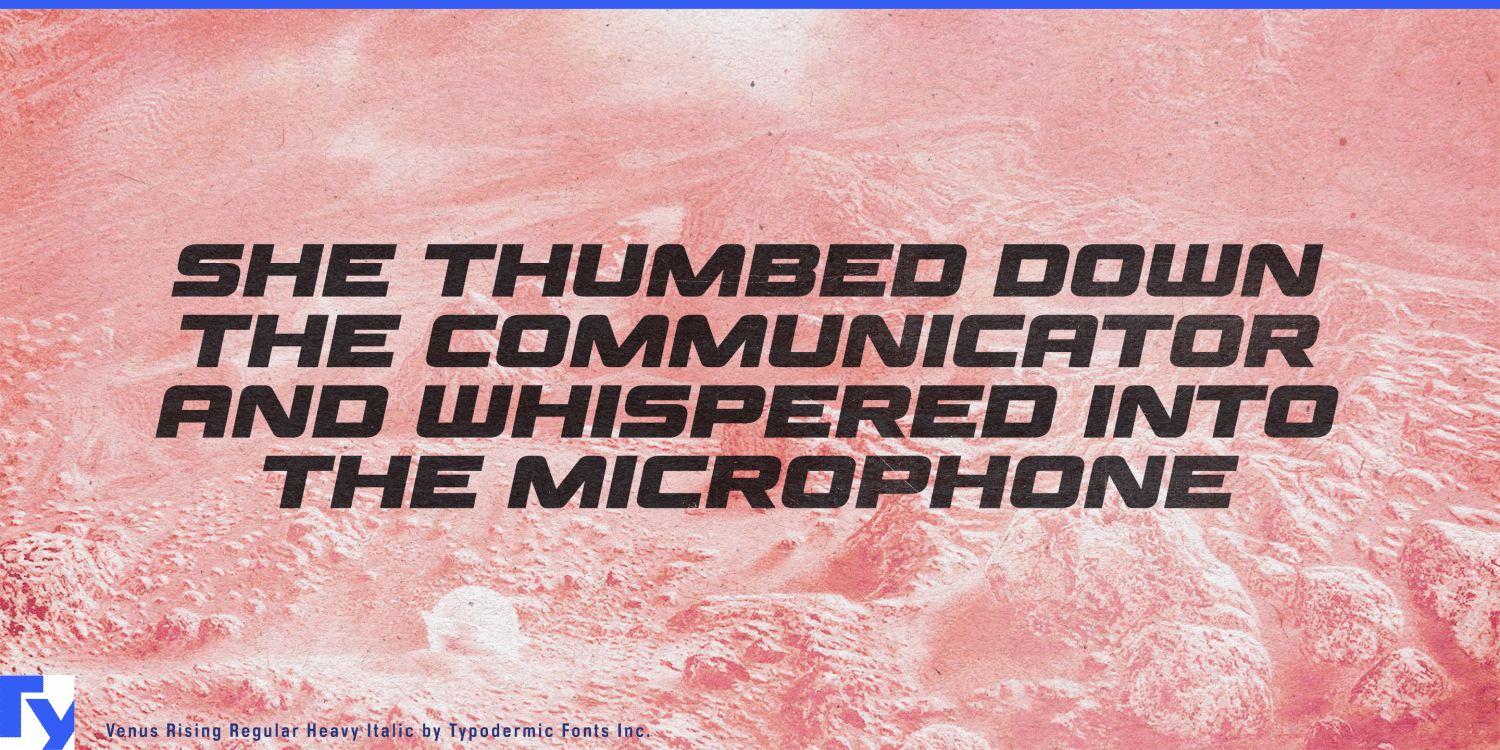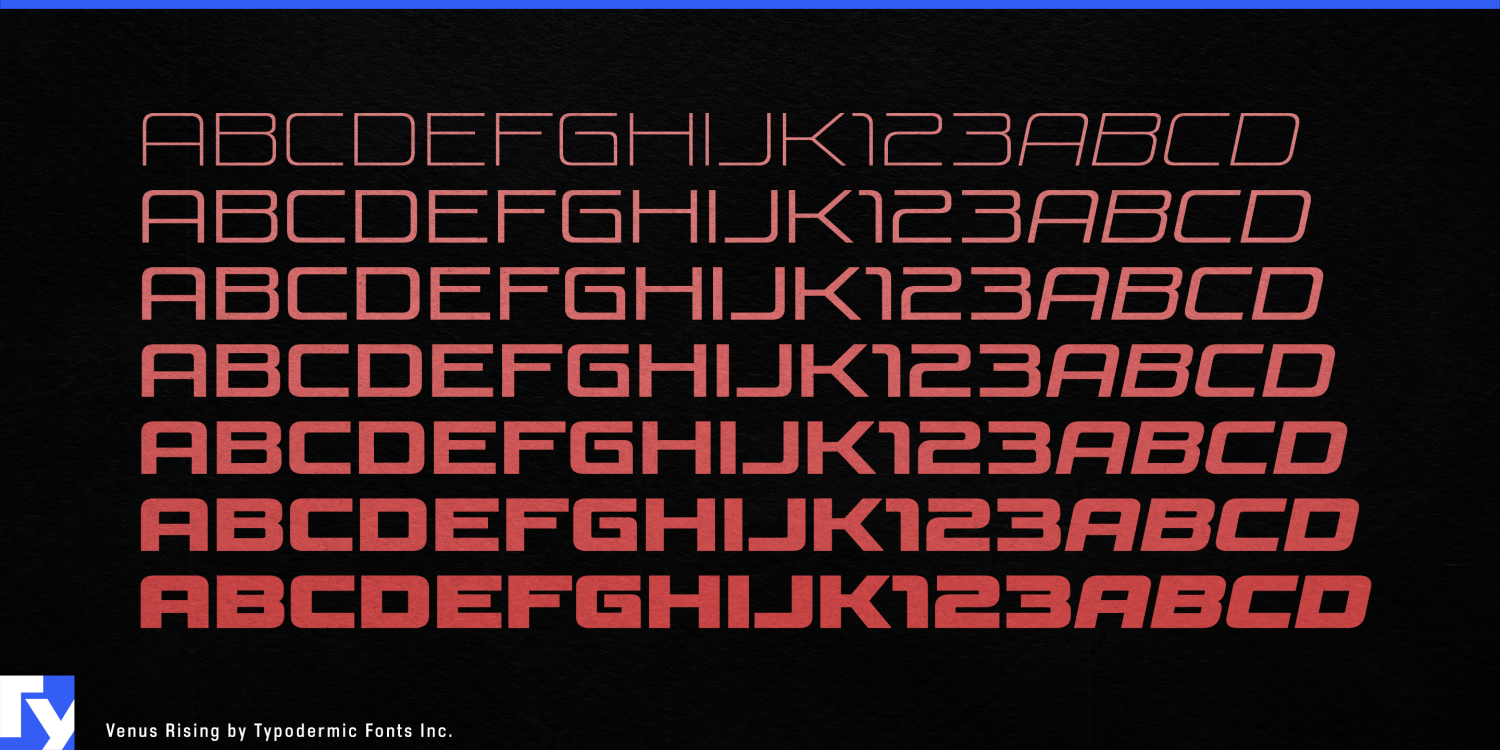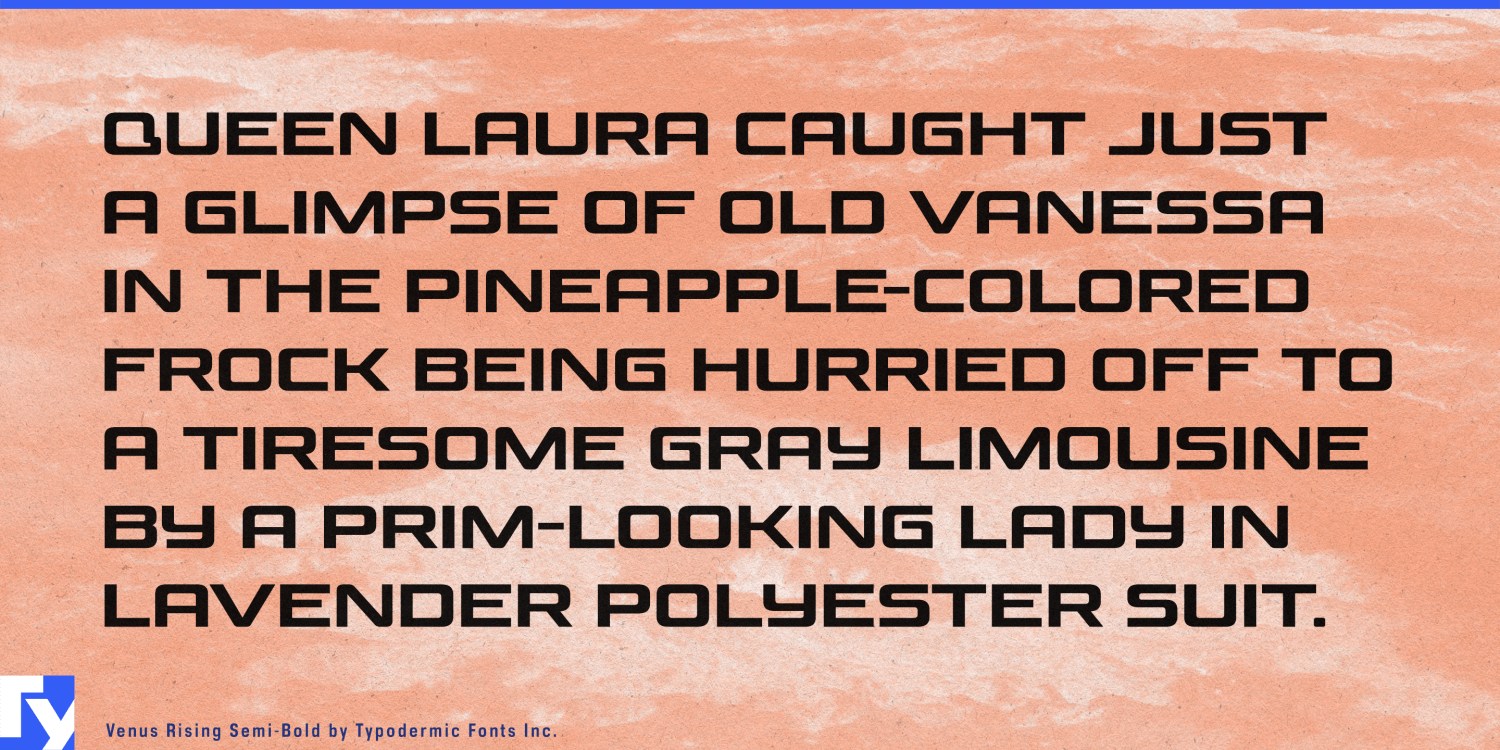
About Venus Rising
Embark on a typographic odyssey with Venus Rising—a font that captures the romance of interplanetary travel and the precision of cosmic engineering. This is a portal to a future where humanity’s reach extends beyond the stars. Venus Rising’s…